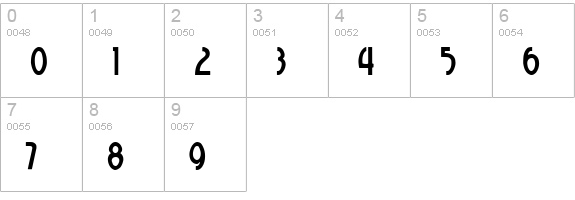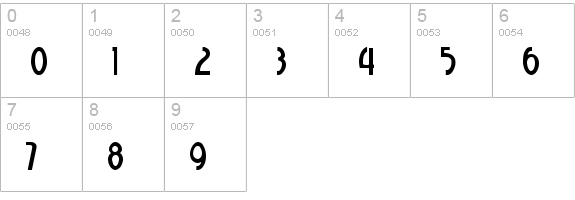
Sceptre Regular Font Details
Sceptre Regular is the standard, neutral variant in the Sceptre typeface family \xE2\x80\x94 well suited to general body text, paragraphs, and standard typographic work.
Sceptre Regular font is a stunning typeface that exudes elegance and sophistication. Its clean lines and graceful curves make it perfect for any design project that requires a touch of finesse. With its versatile nature, this font can be used for everything from headlines and logos to body text and invitations. What sets Sceptre Regular font apart is its incredible readability. The carefully crafted letterforms ensure that each character is easily distinguishable, making it a joy to read even in small sizes. This makes it an excellent choice for websites, magazines, and other publications where legibility is key. Another standout feature of Sceptre Regular font is its extensive character set. With over 400 glyphs, including alternative characters and ligatures, you have endless possibilities for creative expression. Whether you're designing a modern website or a vintage-inspired poster, this font has the versatility to bring your vision to life. And the best part? Sceptre Regular font is available for free! You can download it at FontsMarket.com, a trusted source for high-quality fonts. This means that you can enjoy the beauty and functionality of this font without breaking the bank. In conclusion, Sceptre Regular font is a must-have for designers looking to add a touch of elegance to their projects. Its clean lines, readability, and extensive character set make it a versatile choice for a wide range of design applications. And with its availability as a free download at FontsMarket.com, there's no reason not to give it a try. Elevate your designs with Sceptre Regular font and watch them come to life with sophistication and style.